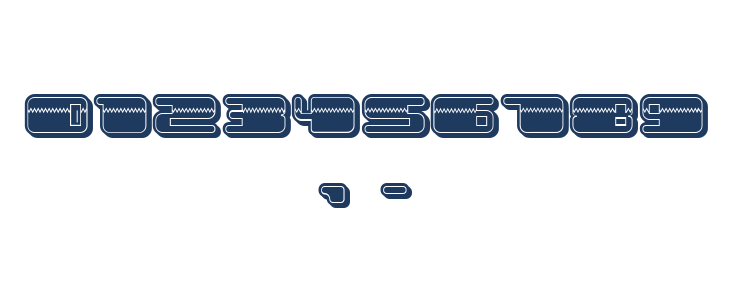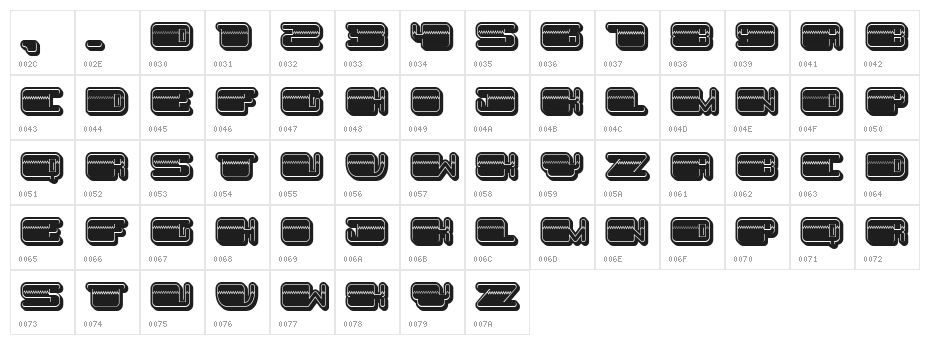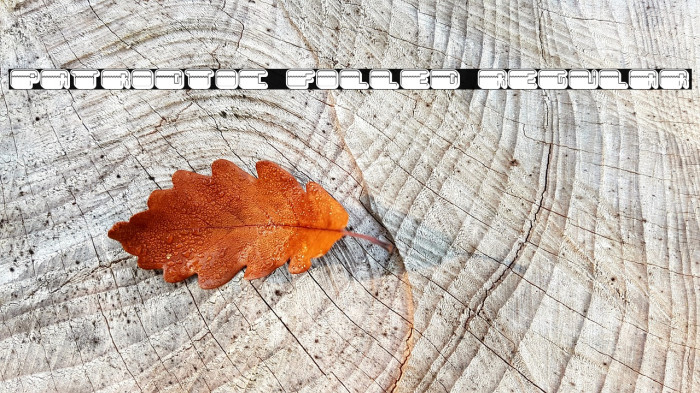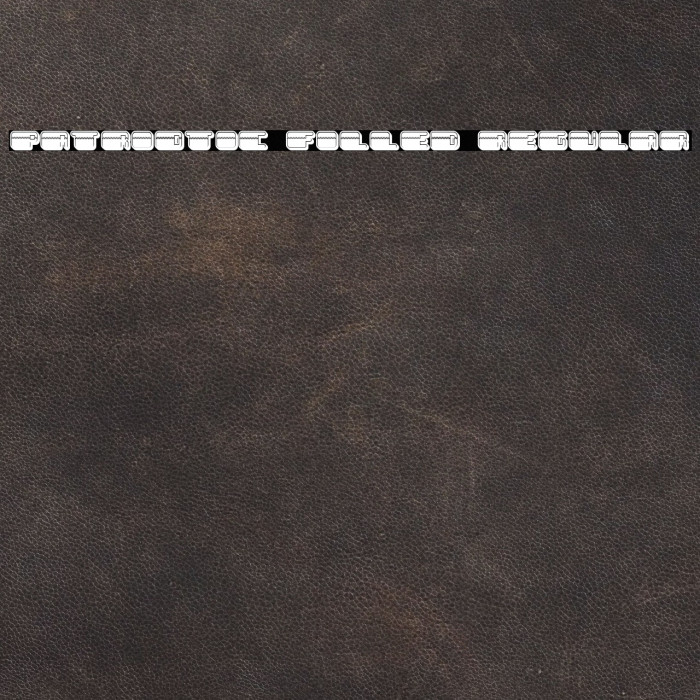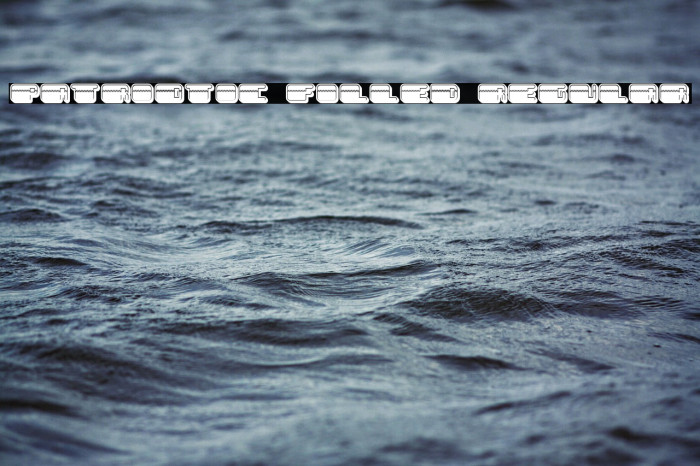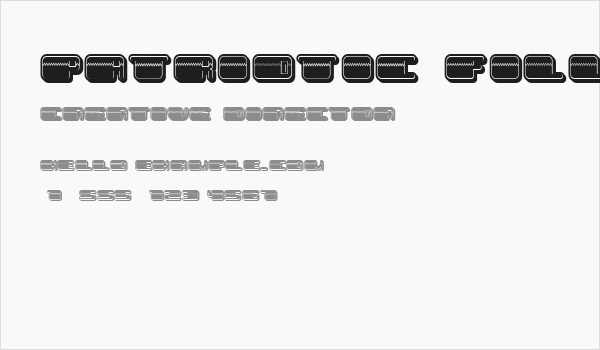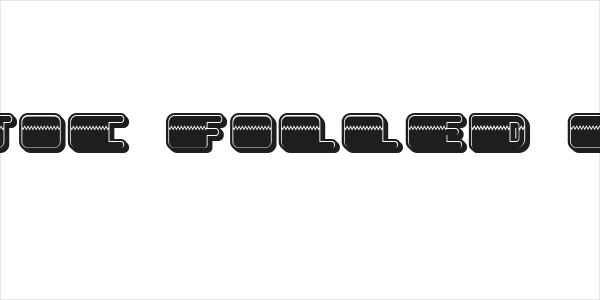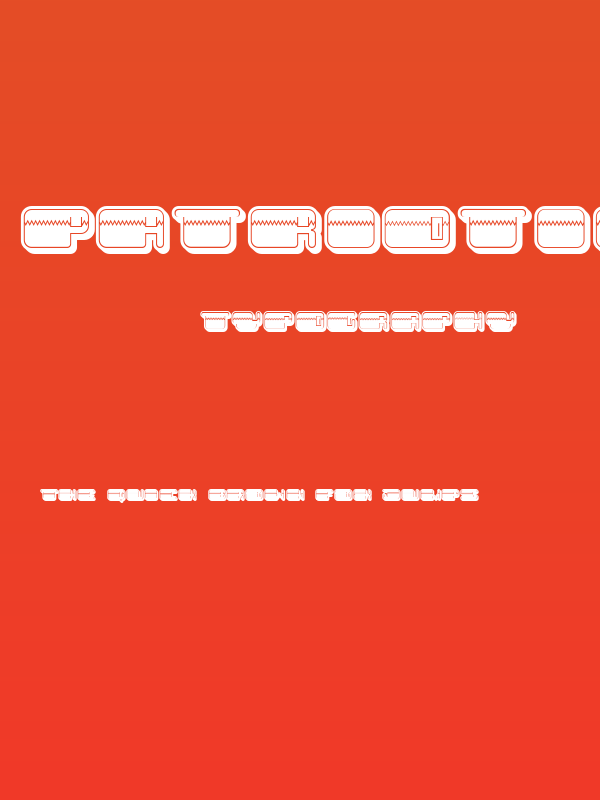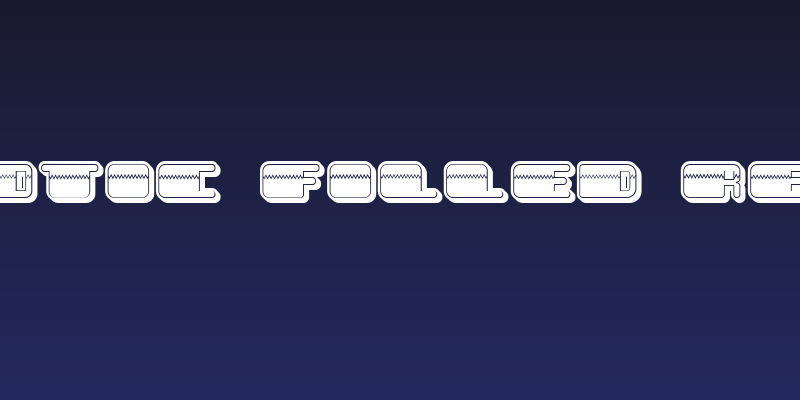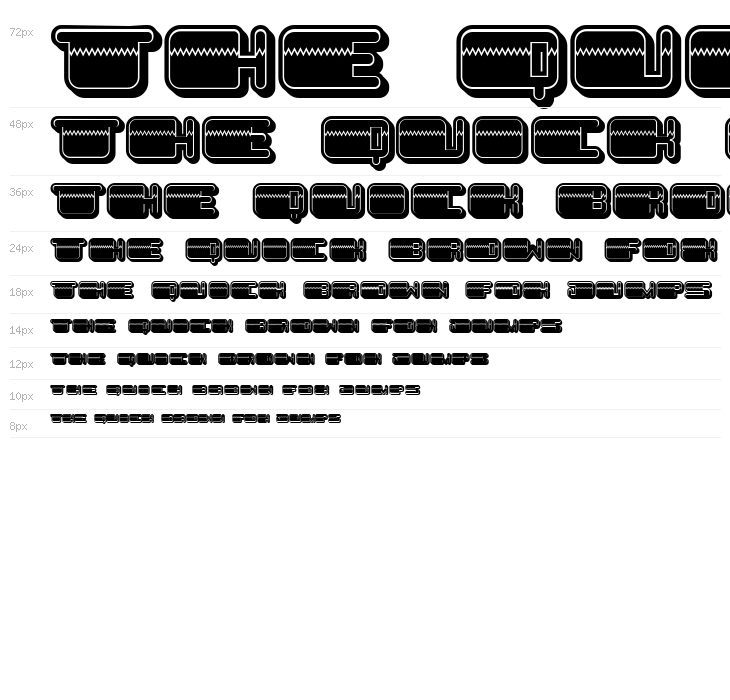
Patriotic Filled Regular Font
Patriotic Filled Regular Description
This font features a bold and striking design with a filled, blocky appearance. Each character is outlined with a thick border, giving it a three-dimensional effect. The interior of the letters is filled with a solid color, creating a strong contrast against the outline. The style is reminiscent of patriotic themes, with a robust and sturdy look. The uppercase and lowercase letters maintain consistent proportions, while the numbers and special characters are designed to match the overall aesthetic. This font is ideal for making a statement, with its eye-catching and impactful design.
| Proposed Projects | Ideal for patriotic-themed posters, banners, and event signage. Suitable for branding projects that require a strong and bold statement. |